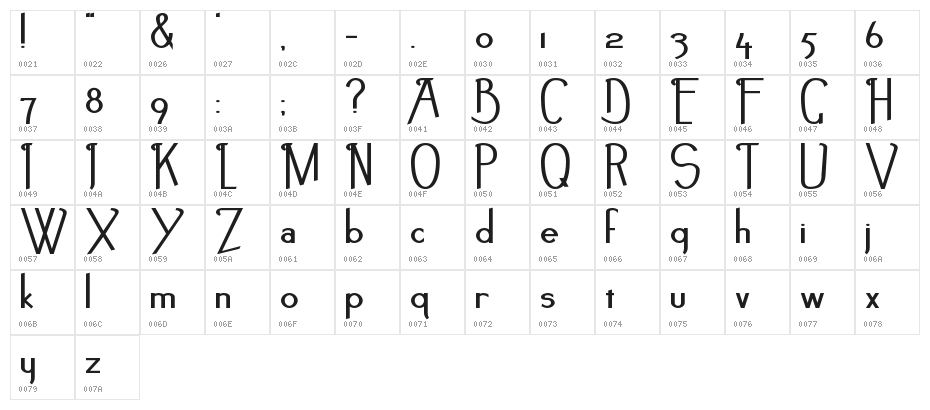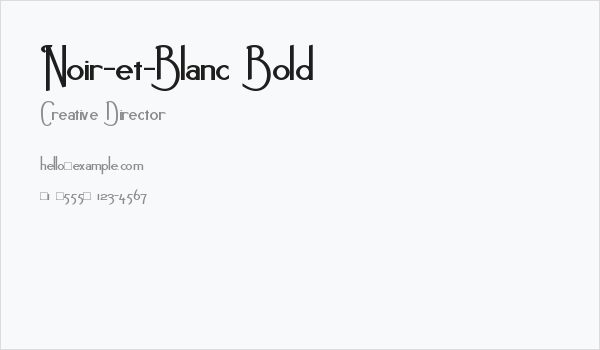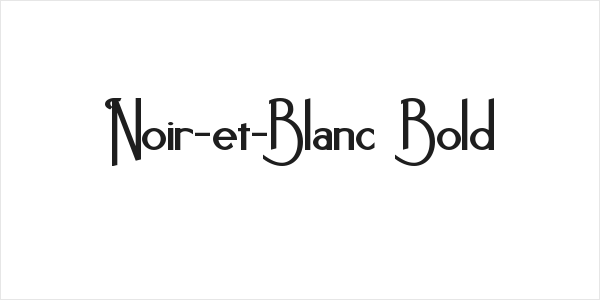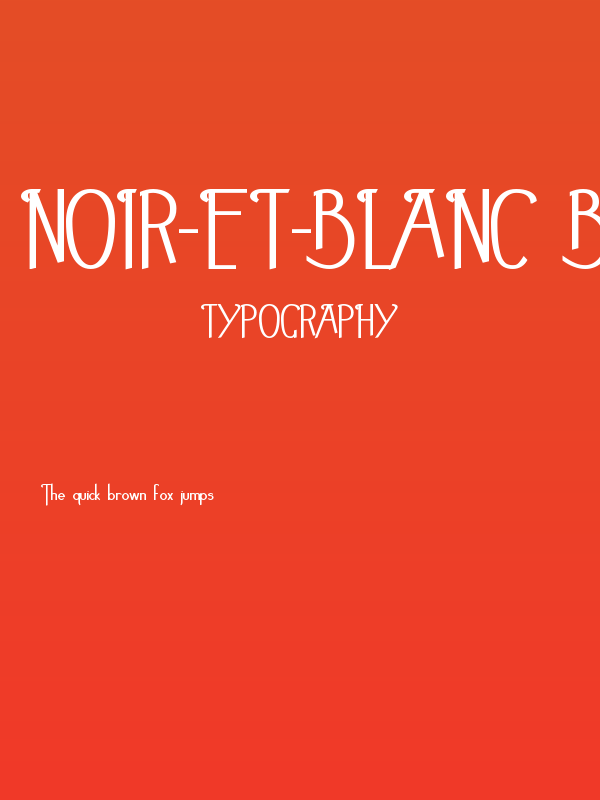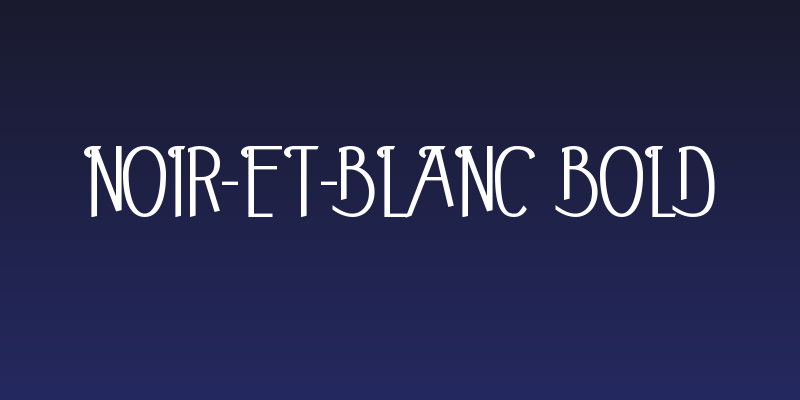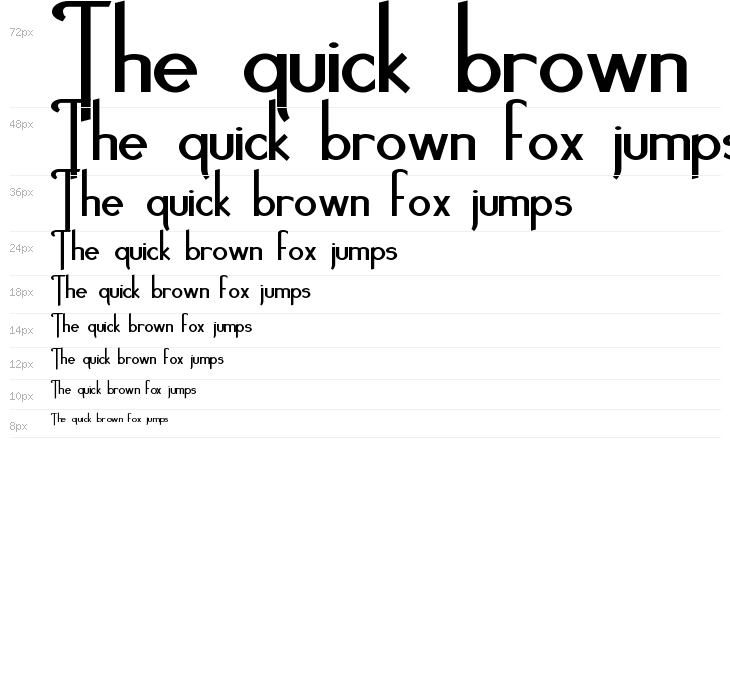
Noir-et-Blanc Bold Font
Noir-et-Blanc Bold Description
This font features a unique blend of modern and vintage styles, characterized by its bold and striking appearance. The uppercase letters have a tall, narrow form with distinct, sharp serifs that give a sense of elegance and sophistication. The lowercase letters are more rounded and compact, providing a nice contrast to the uppercase. The numbers are bold and clear, making them highly legible. Special characters are designed with a creative flair, adding to the font's decorative appeal. Overall, this font is perfect for making a statement with its high contrast and artistic design.
Overall StyleModern, Vintage
Proposed ProjectsIdeal for branding, headlines, posters, and any project that requires a bold statement.